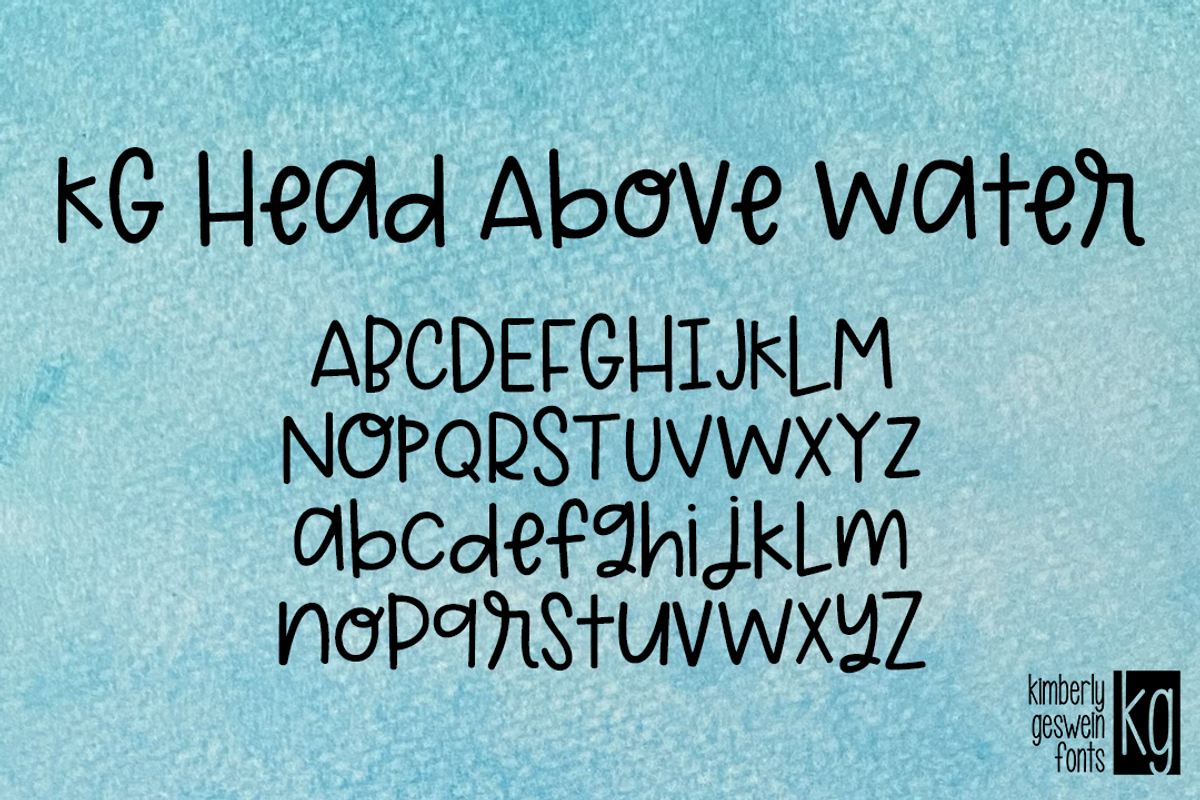
KG Head Above Water Font Free Download is a modern and bold display typeface designed with strong, confident lines and a unique, artistic flair. Perfect for creating eye-catching headlines, logos, posters, and branding, this font brings an element of sophistication and energy to any design project.
The font’s distinctive character and clean, impactful style make it ideal for designs that need to stand out and make a statement. Whether you're working on an editorial layout, a creative logo, or promotional materials, KG Head Above Water offers a strong and stylish foundation for your typography.